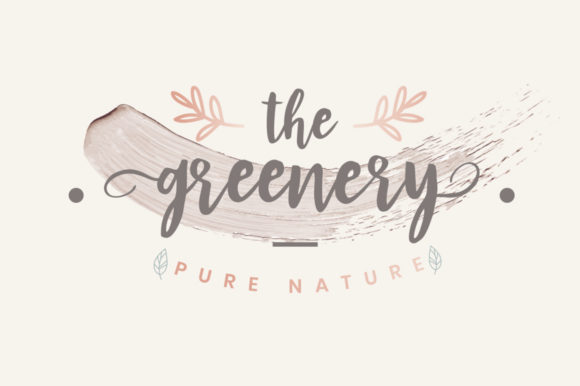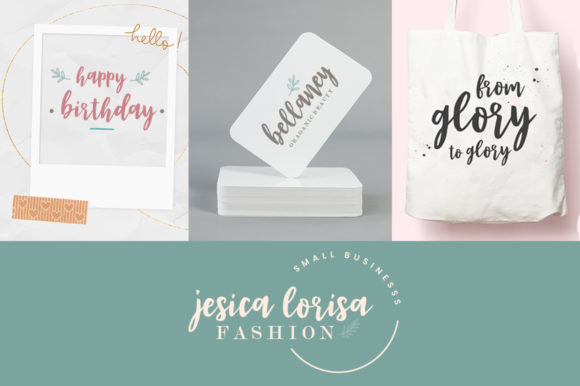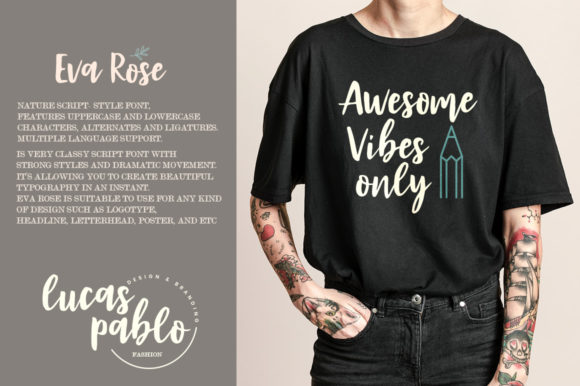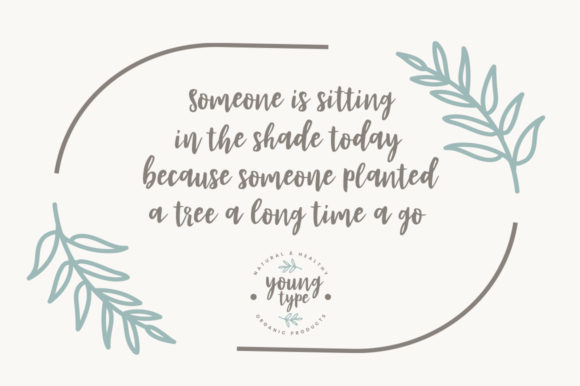
Eva Rose Font: Elevate Your Crafting Projects with Elegance
Are you looking for a font that can add a touch of sophistication and charm to your crafting projects? Look no further than the Eva Rose Font. This stunning script font is designed to make your projects stand out with its gorgeous and light, yet elegant feel. In this article, we’ll dive into the features and benefits of the Eva Rose Font and explore how it can elevate your crafting projects to the highest level.
What is Eva Rose Font?
Eva Rose Font is a beautiful script font that is perfect for crafters, designers, and anyone looking to add a personal touch to their projects. The font is designed to be elegant and refined, making it ideal for a wide range of applications, from card making and scrapbooking to stationery and branding.
Key Features of Eva Rose Font
So, what makes Eva Rose Font so special? Here are some of its key features:
- PUA Encoding: Eva Rose Font is PUA (Private Use Area) encoded, which means that you can access all of its charming glyphs and swashes with ease. This makes it easy to add unique and creative elements to your projects.
- Alternate Glyphs and Ligatures: The font features a wealth of special features, including alternate glyphs and ligatures. These allow you to customize your text and add a personal touch to your projects.
- Light and Elegant Feel: Eva Rose Font has a gorgeous and light, yet elegant feel that makes it perfect for a wide range of applications.
Benefits of Using Eva Rose Font
So, why should you choose Eva Rose Font for your crafting projects? Here are some of the benefits of using this stunning script font:
- Elevate Your Projects: Eva Rose Font is designed to effortlessly elevate any crafting project to the highest level. Its elegant and refined feel makes it perfect for creating professional-looking projects.
- Add a Personal Touch: With its charming glyphs and swashes, Eva Rose Font allows you to add a personal touch to your projects. This makes it perfect for creating unique and customized gifts, cards, and other items.
- Easy to Use: Eva Rose Font is easy to use, even for those with limited design experience. Its PUA encoding and special features make it simple to access and customize the font.
Uses for Eva Rose Font
Eva Rose Font is a versatile font that can be used for a wide range of applications, including:
- Card Making: Add a touch of elegance to your handmade cards with Eva Rose Font.
- Scrapbooking: Use Eva Rose Font to create beautiful and customized scrapbook pages.
- Stationery: Create professional-looking stationery with Eva Rose Font.
- Branding: Use Eva Rose Font to create a unique and memorable brand identity.
In conclusion, Eva Rose Font is a stunning script font that is perfect for crafters, designers, and anyone looking to add a personal touch to their projects. Its elegant and refined feel, combined with its special features and ease of use, make it an ideal choice for a wide range of applications. Whether you’re creating handmade cards, scrapbook pages, or customized stationery, Eva Rose Font is sure to elevate your projects to the highest level.
Get Creative with Eva Rose Font